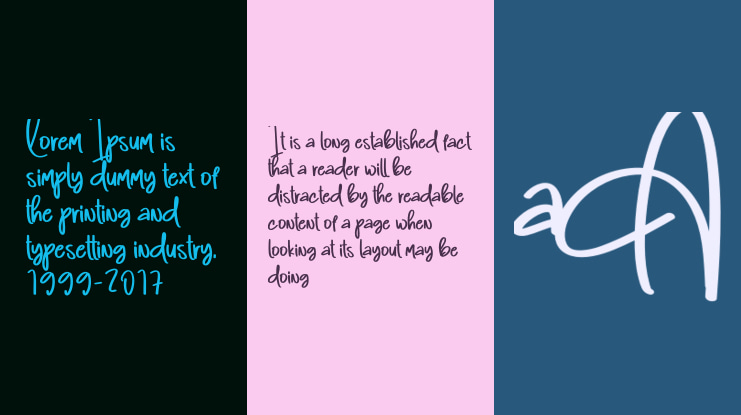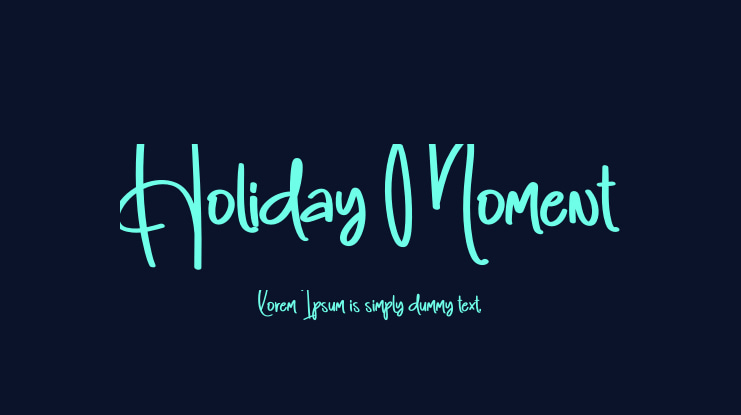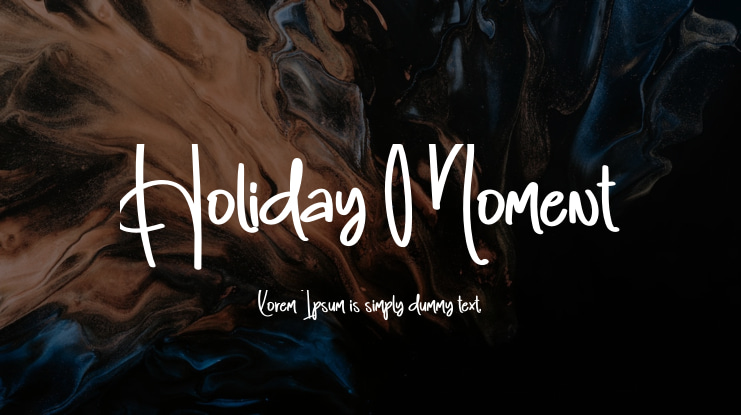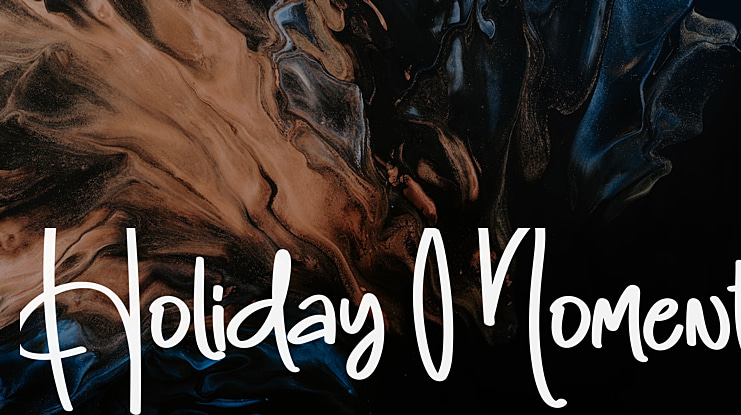
Holiday Moment Font
Our latest letter styles are perfect for a variety of purposes such as wall displays, wedding invitations, social media post logos, advertisements, product packaging, designs, labels, photography, watermarks, invitations, stationery, and any project that requires elegant handwriting.